Today we have a stack of 40 fonts for you. And although these fonts all look like they will be created sometime in the future, they are actually available in the world of today. Most of the fonts are equipped with special characters from several languages. More than half of all the fonts are suitable for commercial use right away. Concerning the other half, as always we advise you to get into contact with the creator of the font to clarify conditions. This is true for today and will still be true in the future. Now enjoy our collection of 40 free futuristic fonts of today.
Neuropol X Font
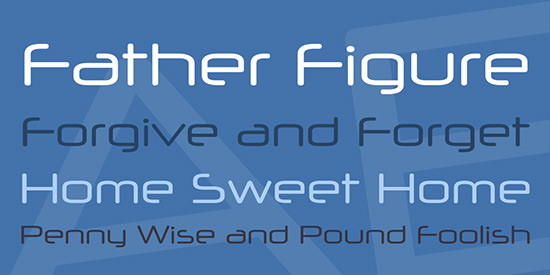
Yukarimobile
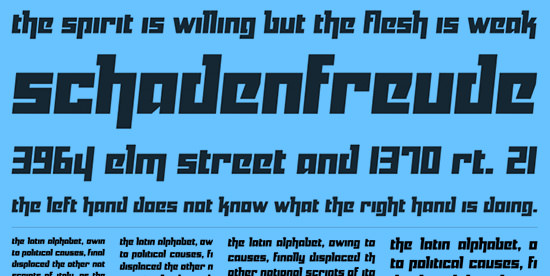
Bladeline Font
Mars Font
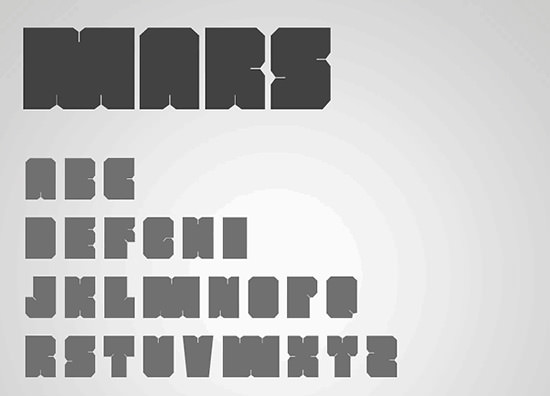
Univox Font
Universal Jack
Neogrey
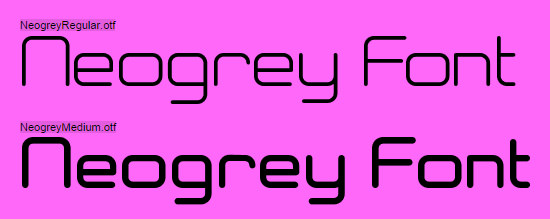
Sloux
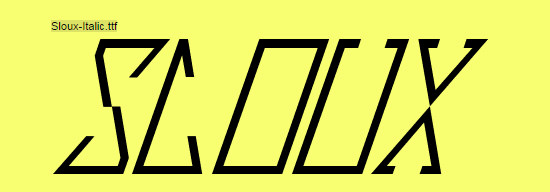
LEDLIGHT font
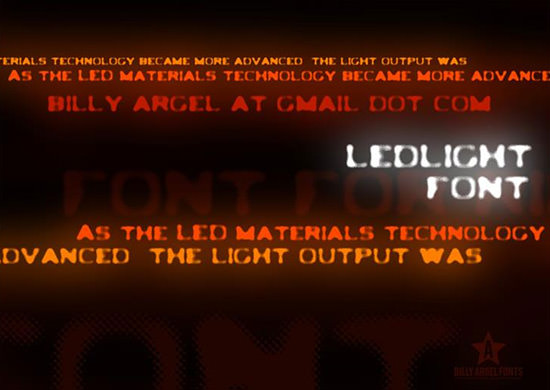
Navia Type Free
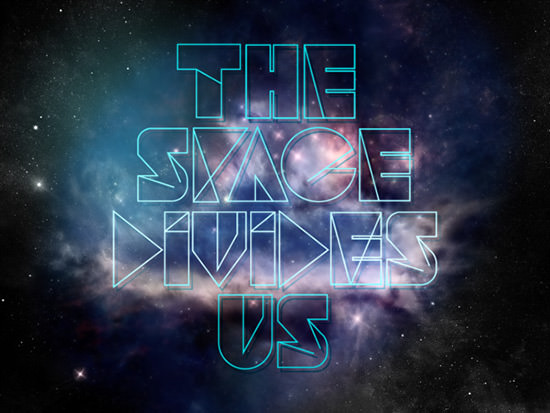
Astronaut
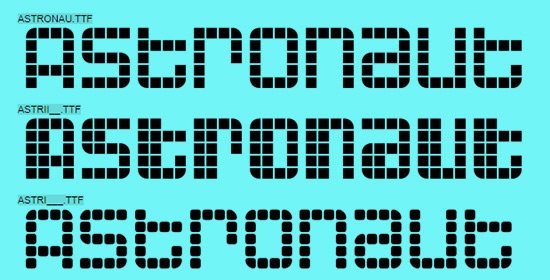
Digital
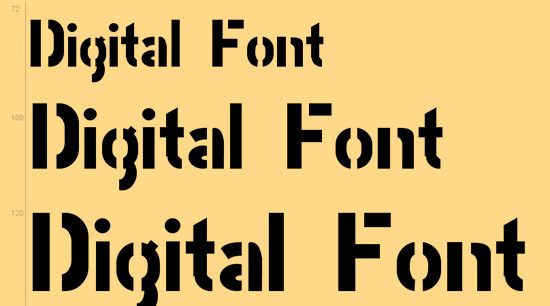
Moondance
LOT free font
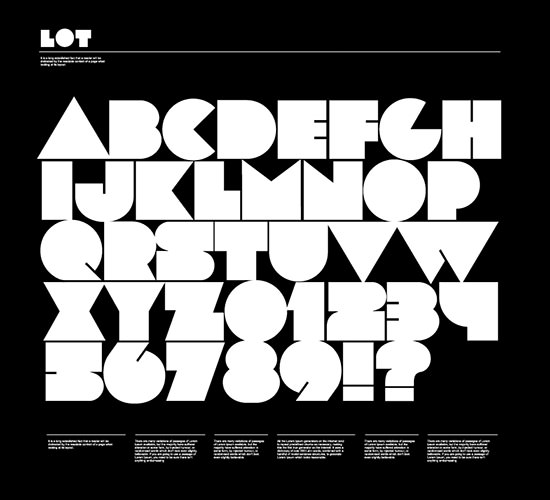
Republica
Quadro
Radio
Hybrid Bold font
Ergono
Darktech LDR
Sonic Empire font
NeuropolXRg-Regular font
Dark future
Elektora
ZeroHour
Anxiolytic font
Good Times
Across The Stars
DYLOVASTUFF font
Lost in Future font
Space and Astronomy font
Life in Space font
Space Age
Venus Rising
Aunchanted Xspace font
BPneon font